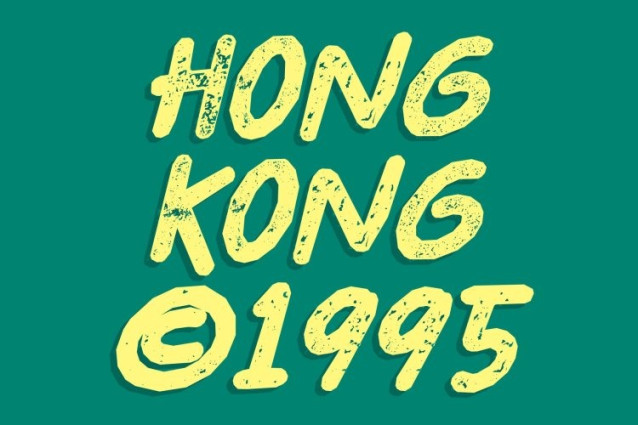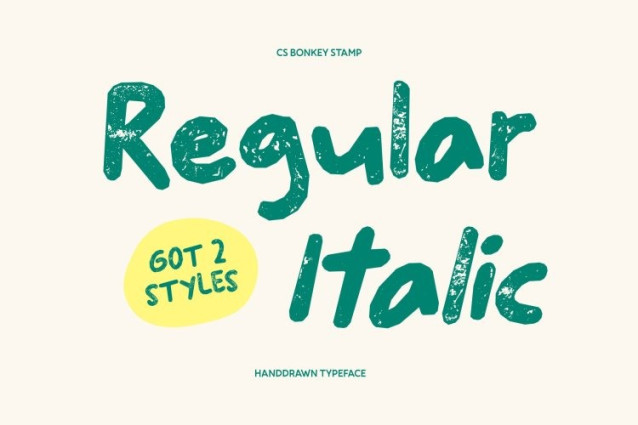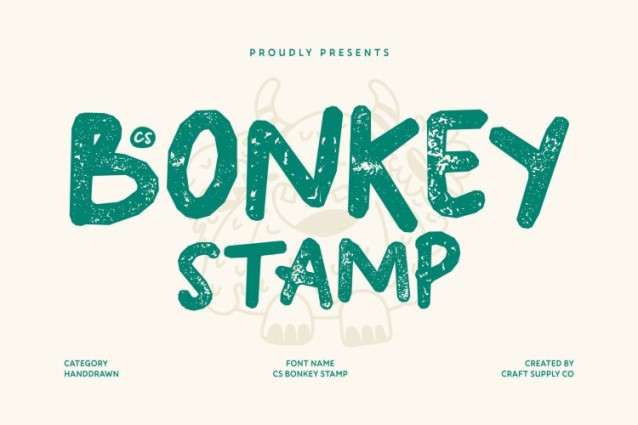
CS Bonkey Stamp Font This is a cute handwritten font that radiates joy and positivity, now enhanced with a subtle stamped texture. Its friendly strokes and rounded sans serif influence maintain a soft and approachable look, while gentle ink variations and lightly distressed edges introduce a handcrafted, print-inspired charm. The result is typography that feels lively, warm, and delightfully authentic.
Rounded Shapes with Cozy Texture
The smooth, rounded letterforms create a lovable and welcoming impression. With the stamped finish, each curve gains added depth and character, giving designs a tactile and slightly vintage feel. This texture enhances visual interest while preserving clarity, making every word appear bright, youthful, and engaging.
Expressive Energy with Handcrafted Warmth
The natural handwritten flow brings movement and creativity to your compositions. The subtle stamped effect reinforces the personal, human quality of the font, adding personality and emotional appeal. It communicates friendliness and excitement effortlessly, making designs feel energetic and full of life.
Perfect for Kids’ Projects and Playful Branding
This font shines in children’s books, party invitations, playful packaging, cute logos, stickers, and cheerful social media content. Its combination of rounded forms and textured warmth creates a joyful atmosphere that captures attention and spreads happiness in every creative project.